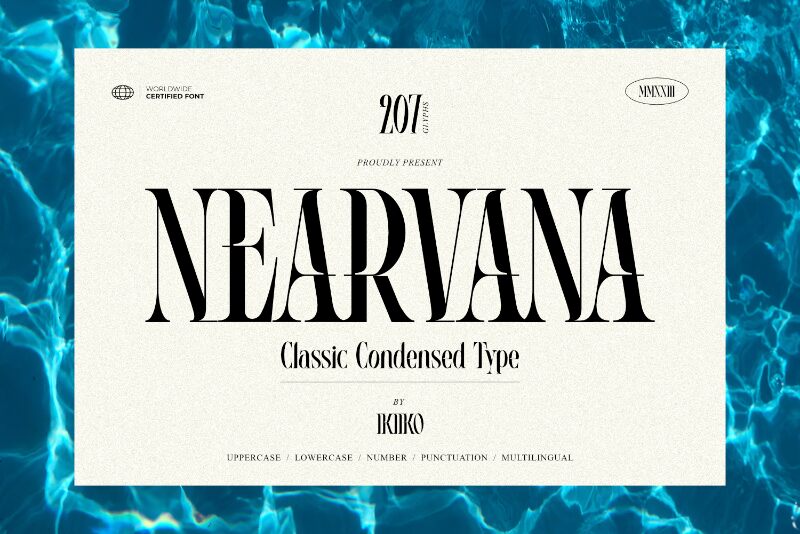
Nearvana DEMO
Nearvana font from Ikiiko Type is a sophisticated, elegant, and contemporary serif typeface. With high contrast elements and a minimalist feel, this condensed font offers a unique style suitable for a range of creative projects.
Use this free serif font in headings, sub-headings, titles, cover designs, magazines or book interiors. Integrate it into package designs, labels on products like clothing or food items. Craft branding materials like business cards or websites with its versatile letters.